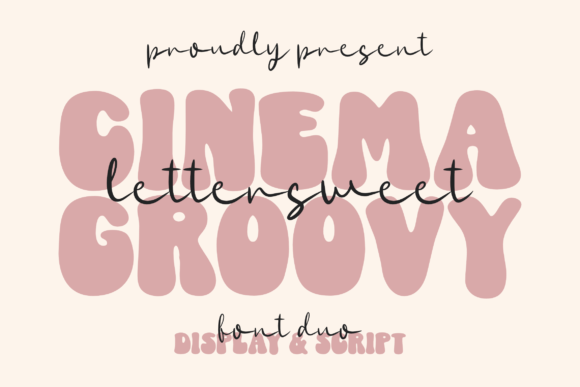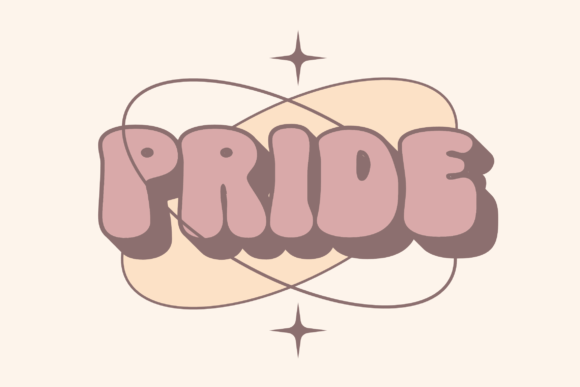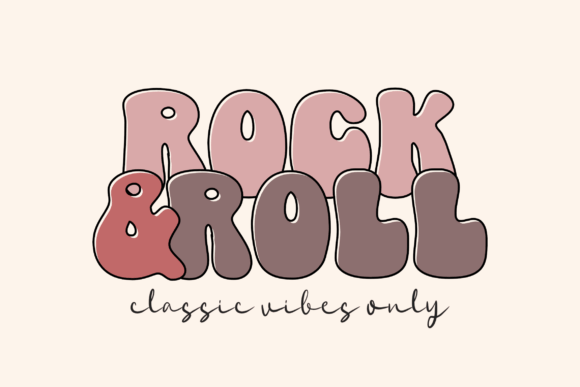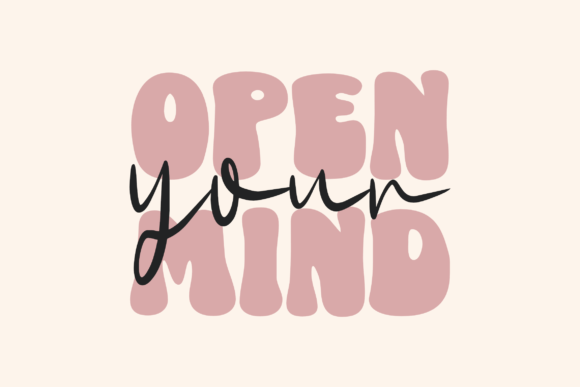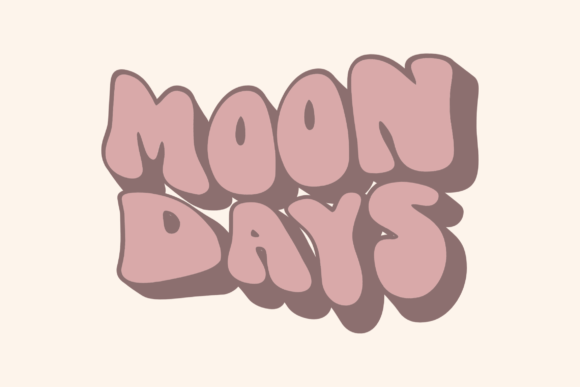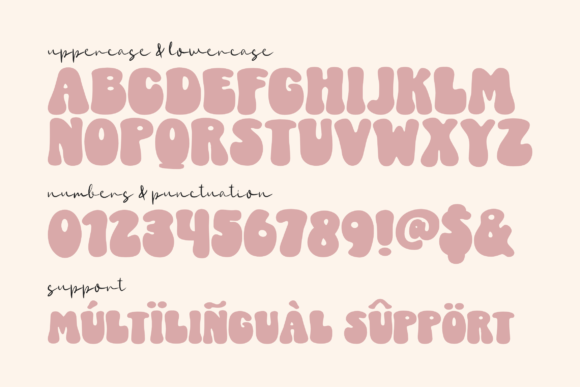
Cinema Groovy Font: A Playful and Nostalgic Display Font for Your Creative Projects
Are you looking for a font that can add a touch of vintage retro aesthetic to your design ideas? Look no further than the Cinema Groovy font! This display font is masterfully designed to bring a playful and nostalgic feel to any project, making it a true favorite among designers and crafters.
The Retro Charm of Cinema Groovy Font
Cinema Groovy font feels playfully nostalgic and delivers an incredible vintage retro aesthetic. Its unique design is inspired by the classic films of the past, evoking memories of old movie theaters and vintage cinema posters. With its bold and eye-catching letters, this font is perfect for adding a retro touch to any design idea you can think of.
The Cinema Groovy font is incredibly versatile and can be used in a wide range of design projects. Whether you’re creating a logo, poster, invitation, or social media graphic, this font is sure to make your design stand out. Its playful and nostalgic feel makes it perfect for designs that require a touch of whimsy and personality.
Masterfully Designed for Creative Freedom
The Cinema Groovy font is masterfully designed to become a true favorite among designers and crafters. Its unique design and exceptional quality make it the perfect choice for anyone looking to add a touch of retro charm to their creative projects. With this font, you’ll have the freedom to experiment with different design ideas and bring your creative vision to life.
Key Features of Cinema Groovy Font
- Playful and nostalgic feel: The Cinema Groovy font has a unique design that evokes memories of old movies and vintage cinema posters.
- Vintage retro aesthetic: This font delivers an incredible vintage retro aesthetic that’s perfect for adding a touch of nostalgia to your designs.
- Display font: The Cinema Groovy font is a display font, making it perfect for headlines, titles, and other design elements that require a bold and eye-catching font.
- Versatile: This font can be used in a wide range of design projects, from logos and posters to invitations and social media graphics.
Tips for Using Cinema Groovy Font
The Cinema Groovy font is a playful and nostalgic display font that’s perfect for adding a touch of vintage retro aesthetic to your design ideas. Its unique design and exceptional quality make it a true favorite among designers and crafters. With its versatility and endless design possibilities, this font is sure to bring each of your creative ideas to the highest level!